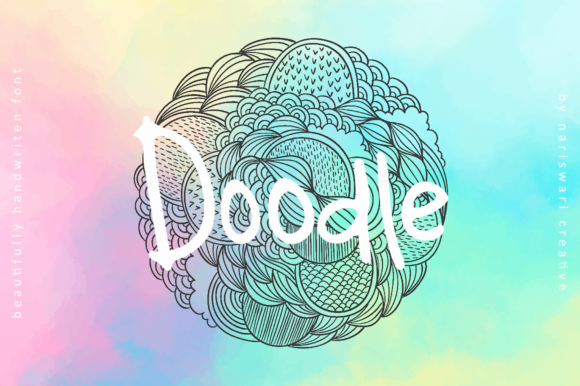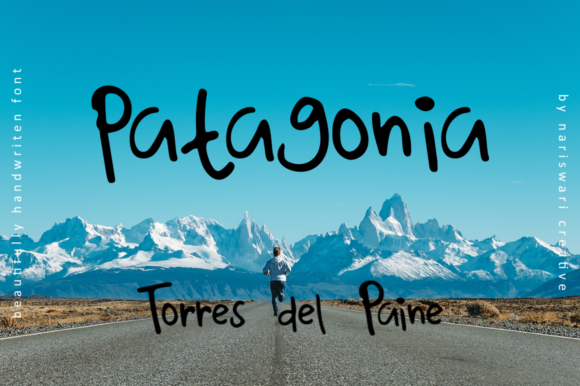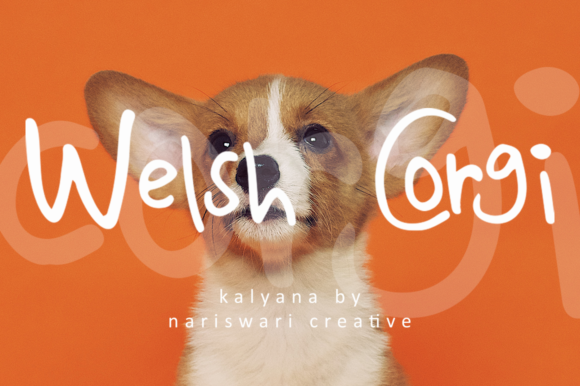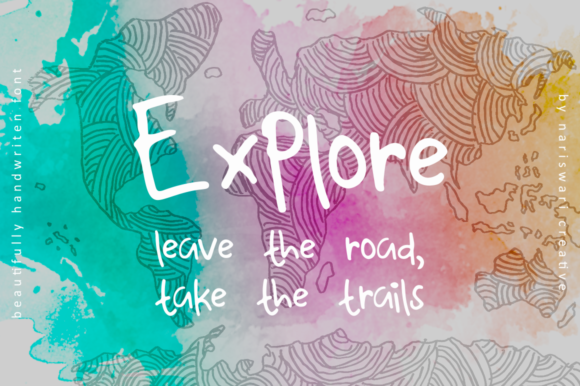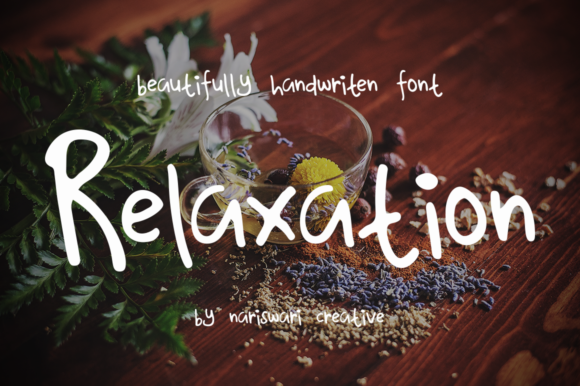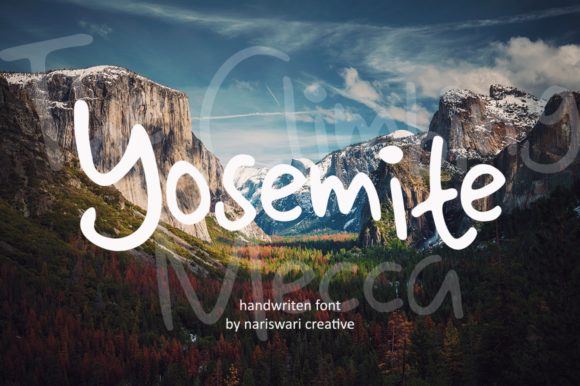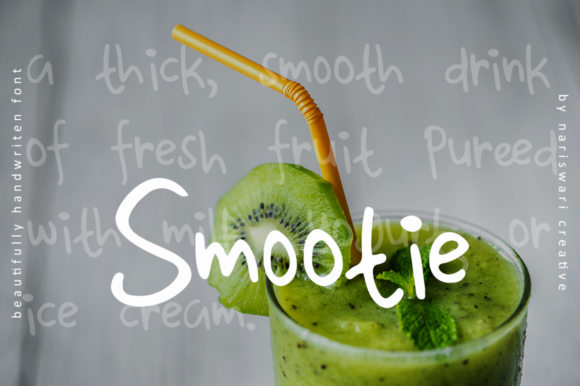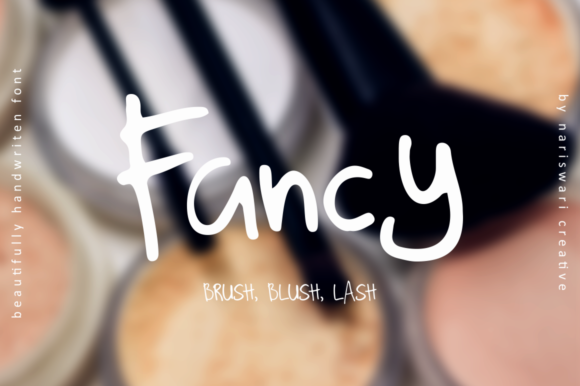
Kalyana Font
About Kalyana Font
Kalyana is a cute handwritten font with a relaxed style! Whether you’re looking for fonts for Instagram or calligraphy scripts for DIY projects, Kalyana will turn any creative idea into a true piece of art!